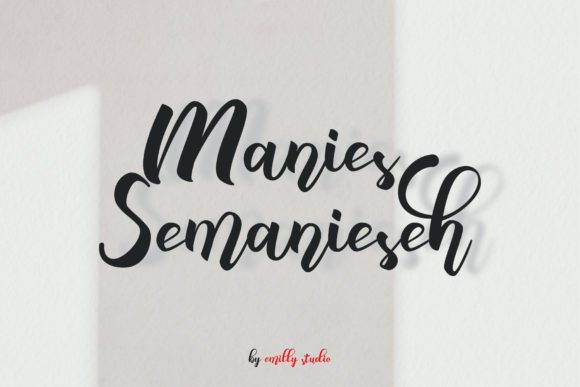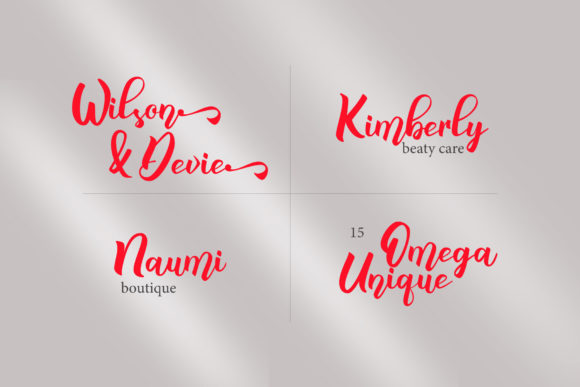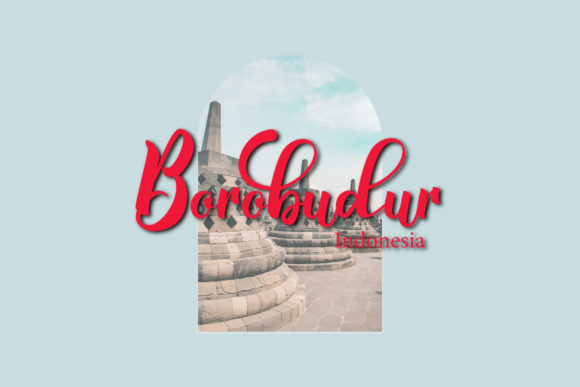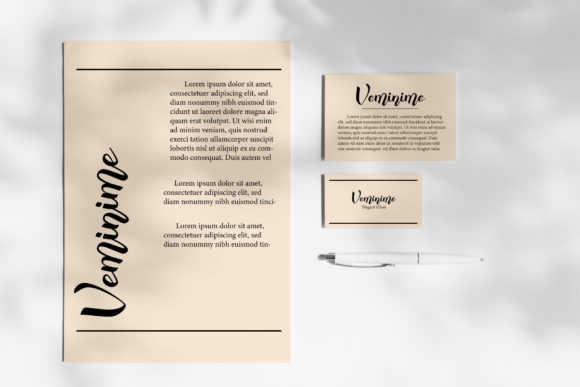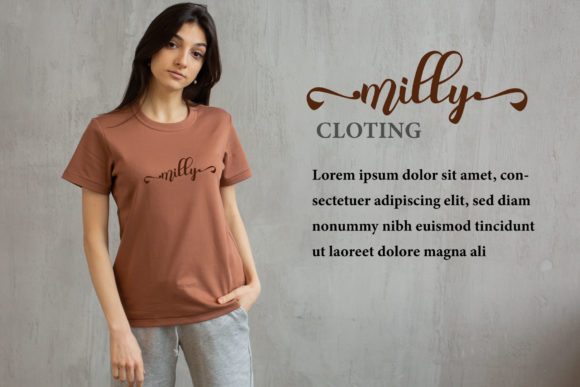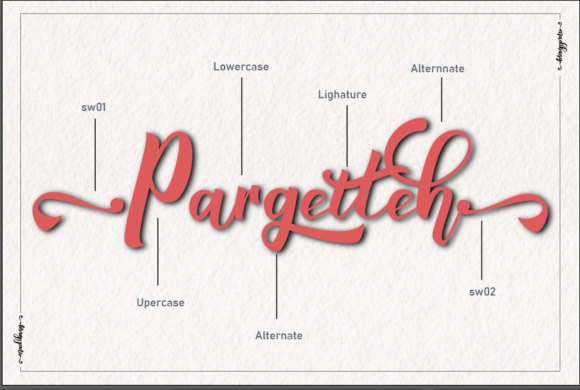
Introduction to Madibang Font
There’s something magical about the moment you stumble upon the perfect font for your creative project. The spark of inspiration, the rush of excitement, and the confidence that your design is going to turn out exactly as you envisioned it. For many designers, this moment is a regular occurrence, thanks to the vast array of fonts available at their fingertips. But for those seeking a handwritten touch that adds a touch of elegance and sophistication, there’s one font that stands out from the rest: the Madibang Font.
Whether you’re crafting a wedding invitation, designing a logo, or creating a heartfelt thank you card, the Madibang Font is an invaluable design resource that’s sure to elevate your work to the next level. Its high-quality, delicate script style lends itself perfectly to a wide range of creative applications, making it an essential addition to any designer’s toolkit.
Key Features of Madibang Font
- Designed with a unique, hand-drawn aesthetic perfect for adding a personal touch to designs
Honest Review: Madibang Font
As a designer, I’m always on the lookout for unique and high-quality design resources. The Madibang Font caught my attention, and I decided to give it a try.
- ✨ The font has a distinctive, hand-drawn feel that adds a creative touch to any project.
- ✨ The font is highly versatile, suitable for a wide range of creative projects, from posters to digital graphics.
- ⚠️ The font may not be suitable for projects that require a transparent background, as it can be quite bold.
- ⚠️ Some users may find the font’s irregularities and imperfections distracting.
Overall, I’m impressed with the Madibang Font, and I think it’s a great addition to any designer’s toolkit. While it may not be perfect for every project, it’s definitely worth checking out for those looking for a unique and creative design resource.
Common Use Cases for Madibang Font
The Madibang Font is perfect for creative projects, including social media graphics, posters, and flyers. It’s also great for designing business cards, brochures, and other marketing materials.